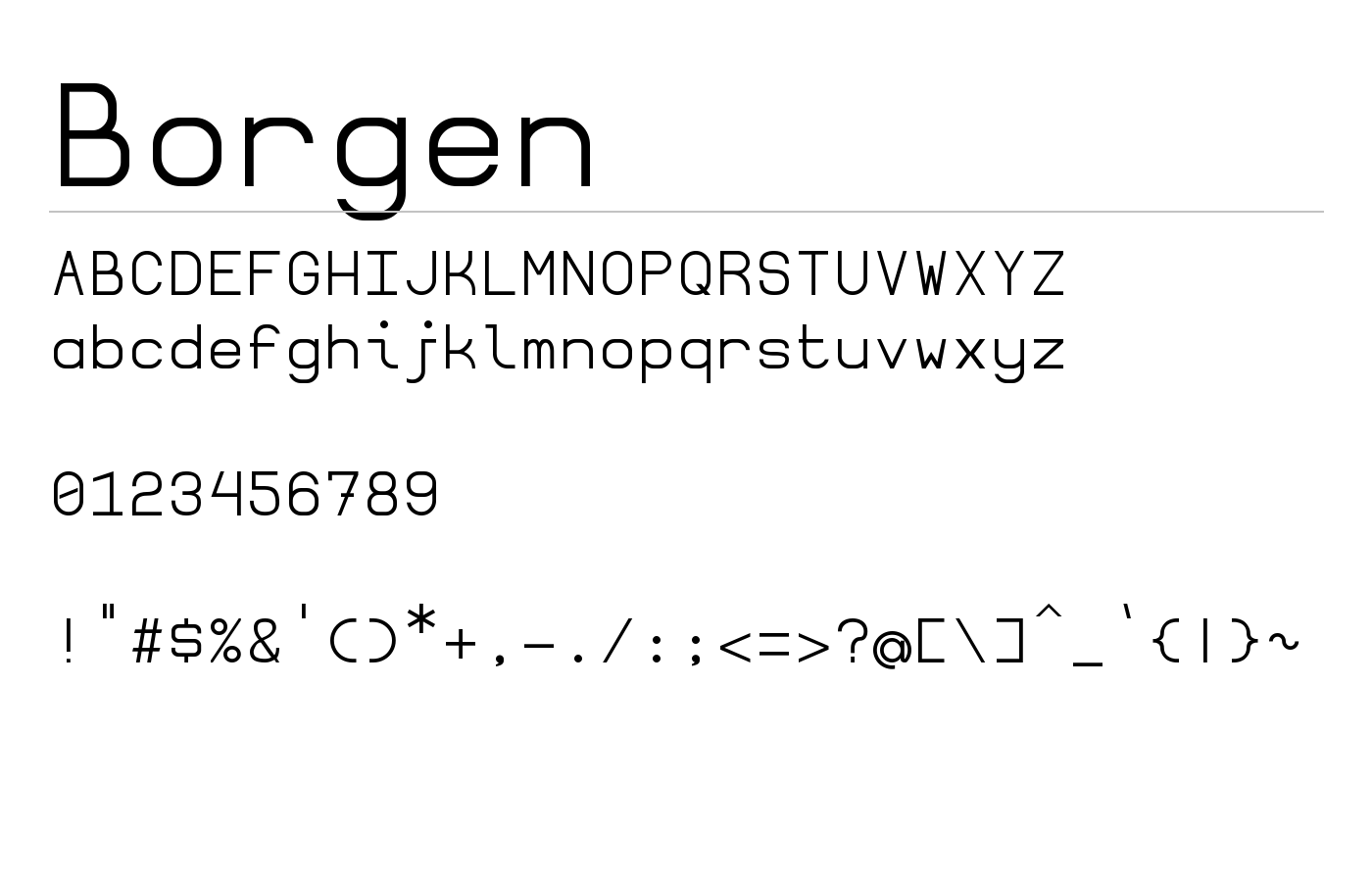
Borgen is a clean, modern sans-serif font characterized by its thin, monoline strokes and slightly rounded corners, giving it a friendly yet technical feel. With its tall x-height and open letterforms, it offers excellent readability, making it ideal for digital interfaces, coding environments, and minimalist branding that seeks a contemporary and approachable look. This font works well for headlines, UI elements, and any design needing a sleek, precise touch with a hint of softness.
Borgen Font
About Borgen Font